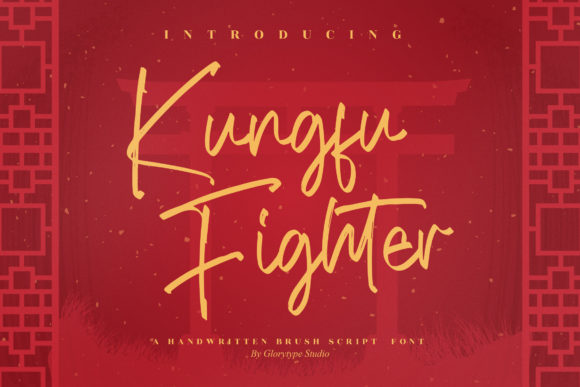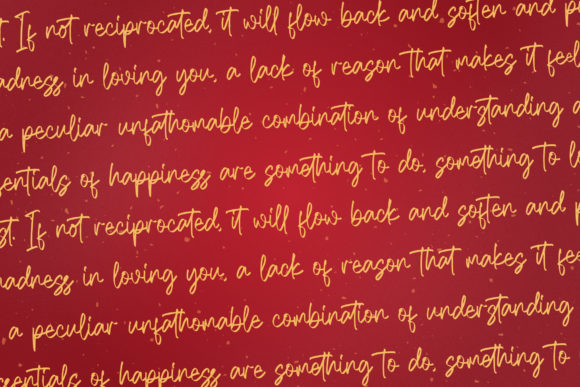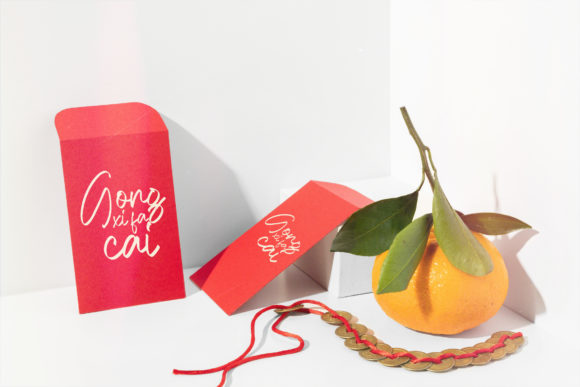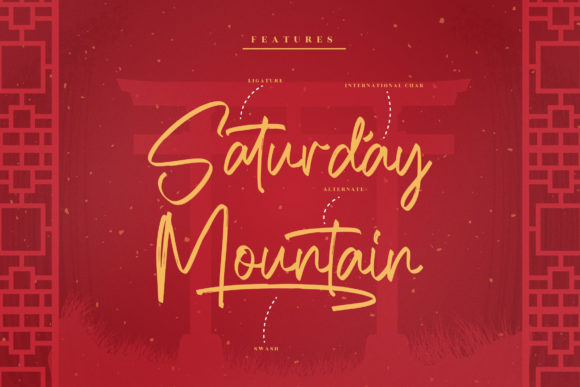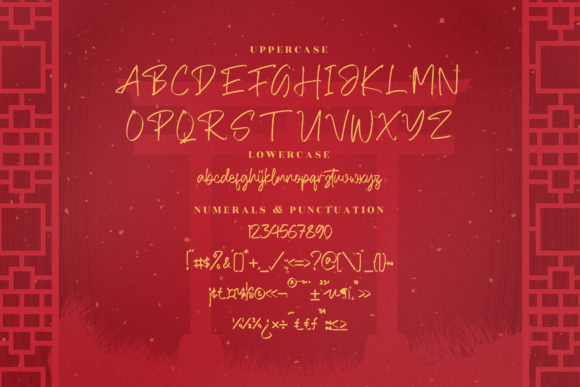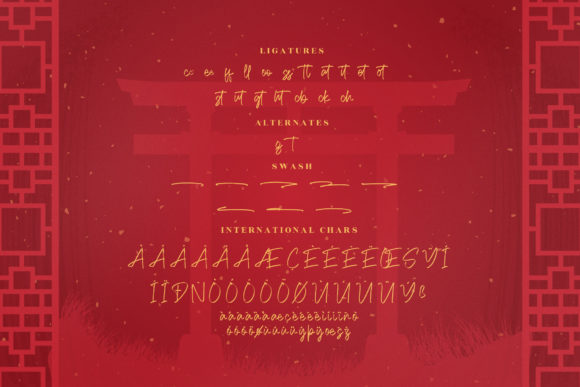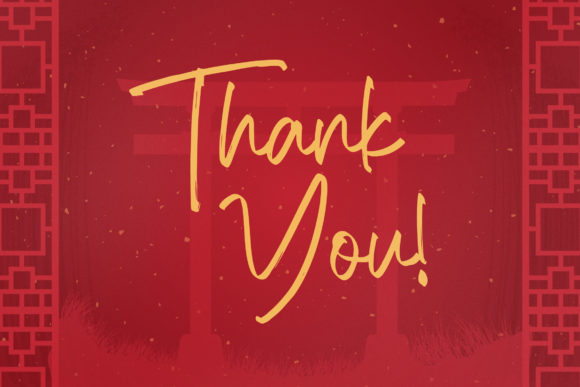
Kungfu Fighter Font
About Kungfu Fighter Font
Kungfu Fighter is a relaxed and fashionable script font. It is PUA encoded which means you can access all of the glyphs and swashes with ease! Trendy and stylish, this font will elevate each of your creations.